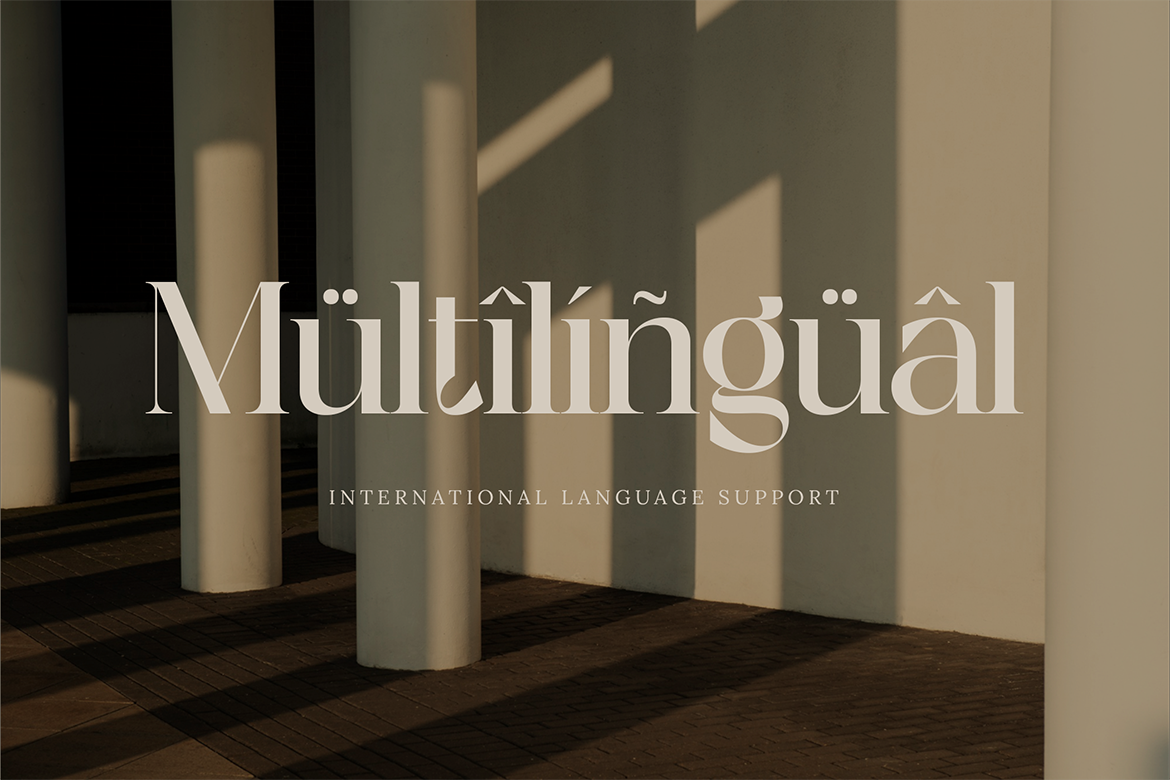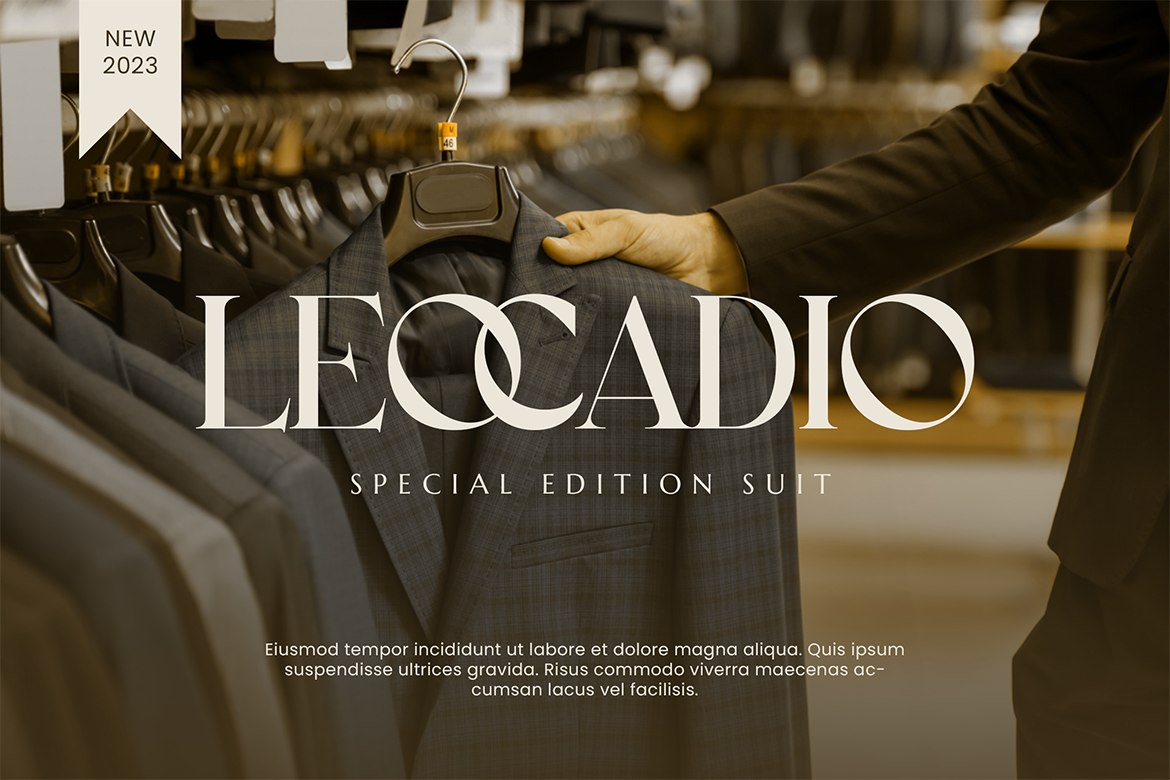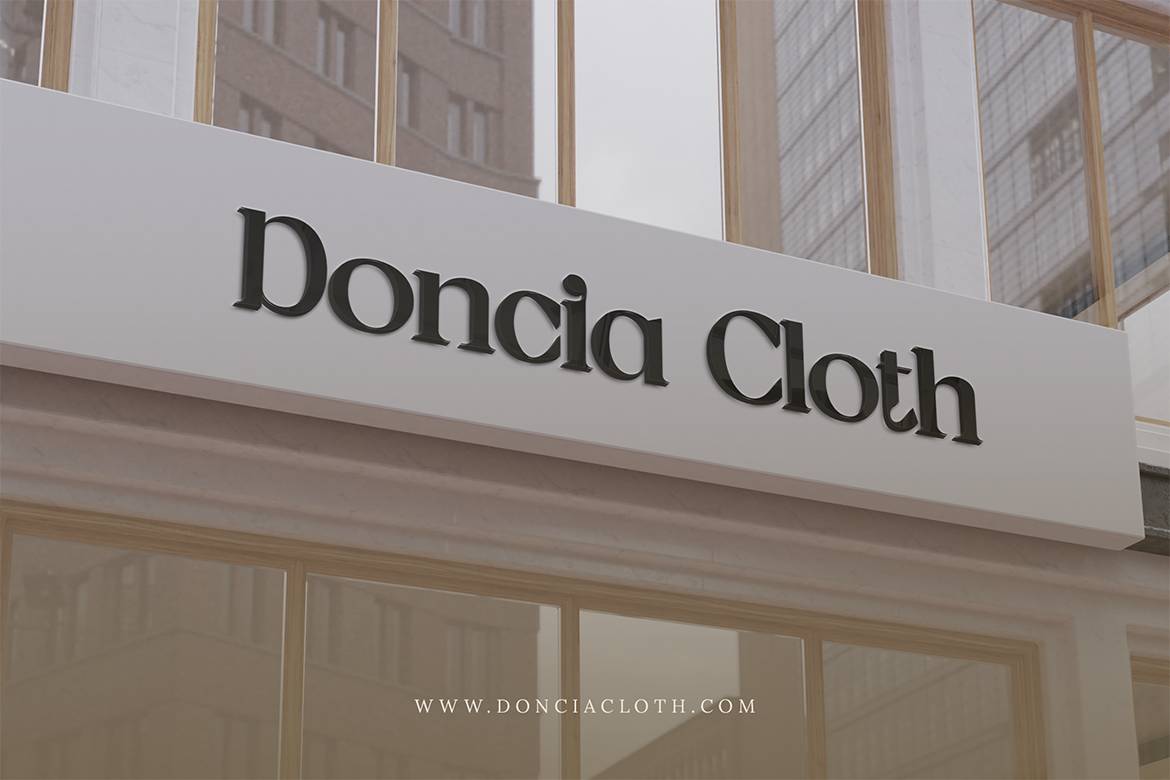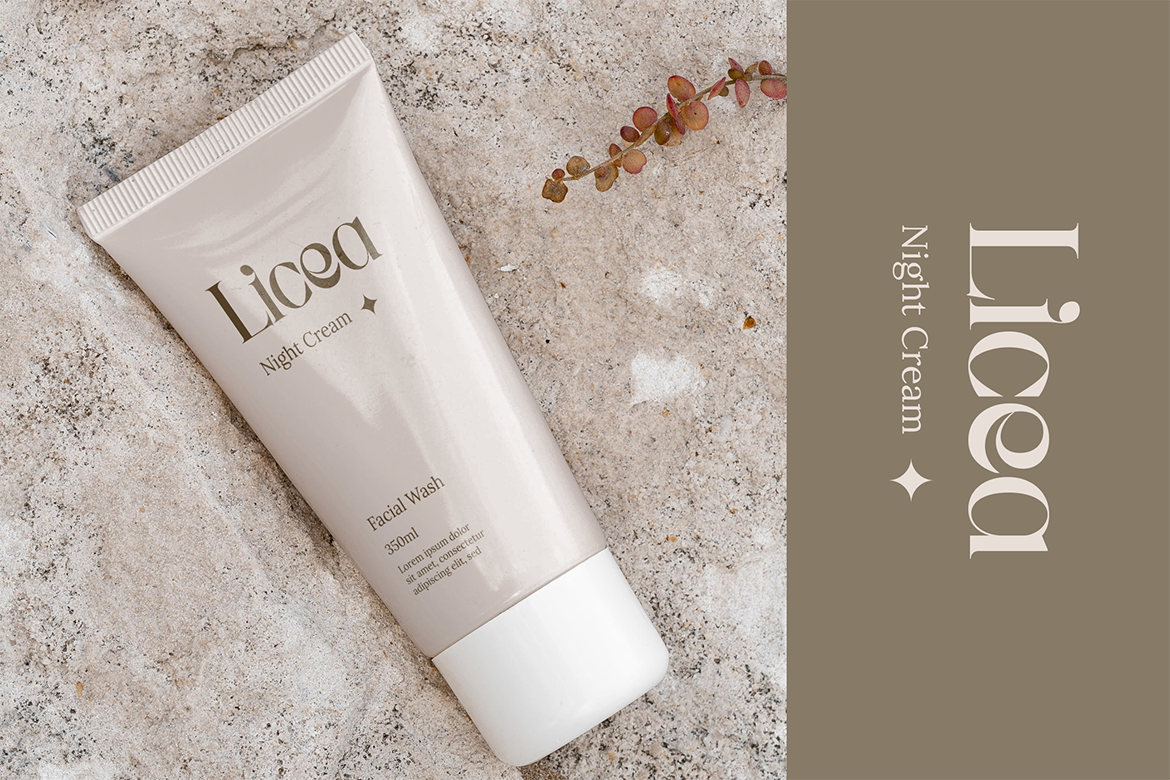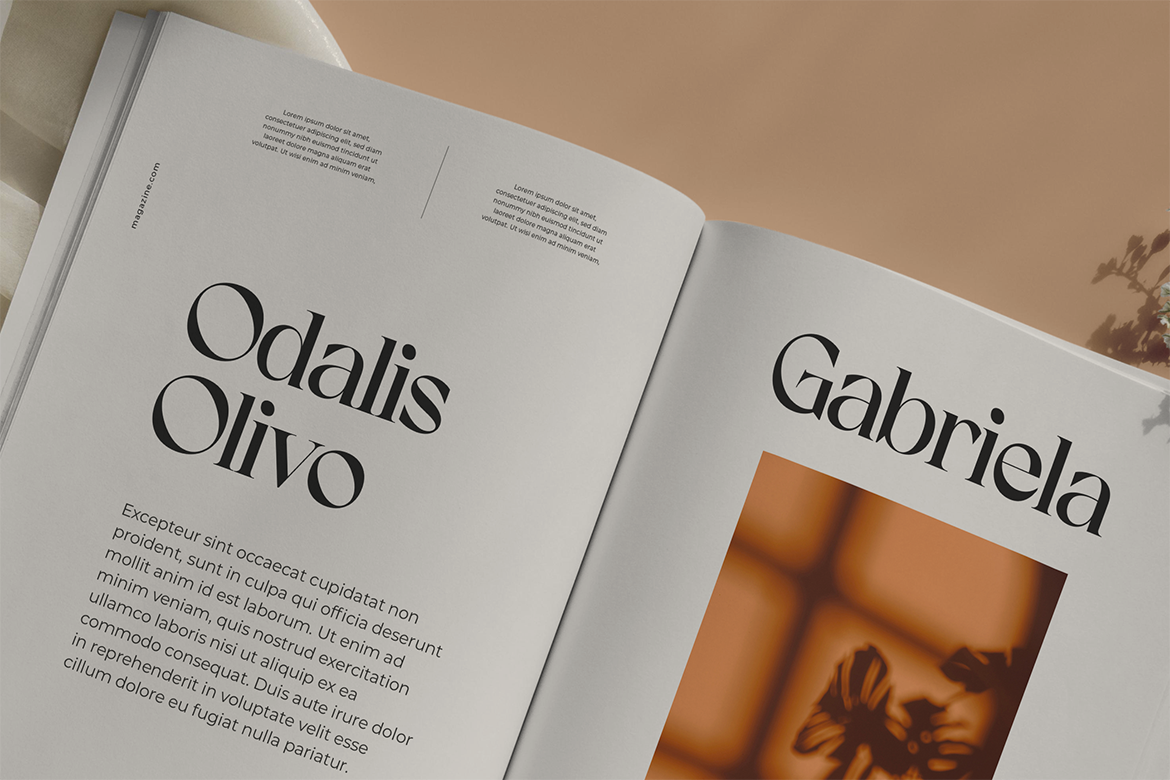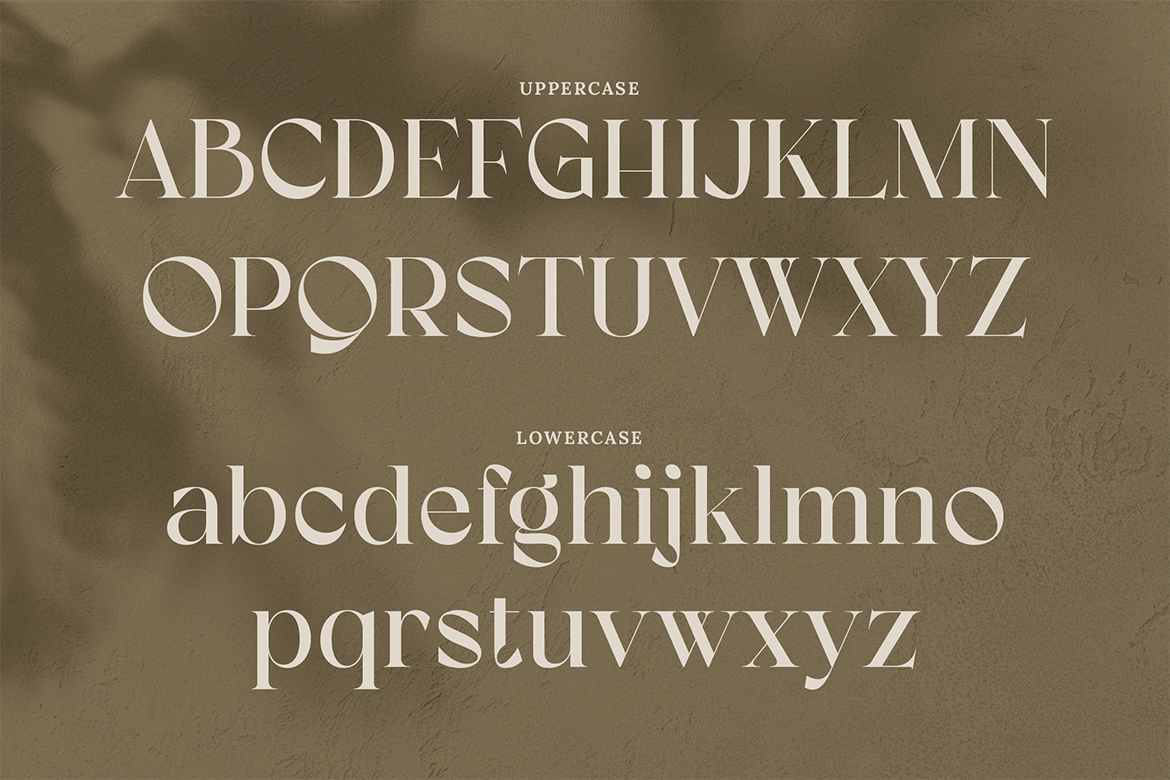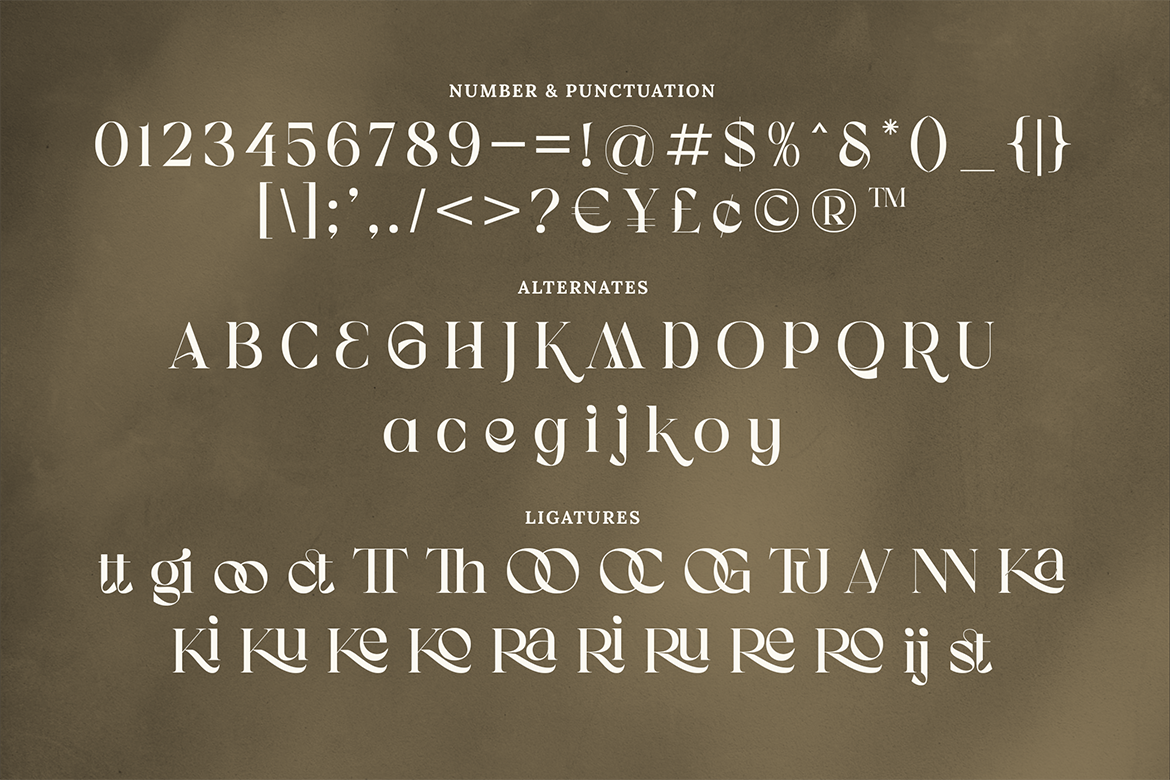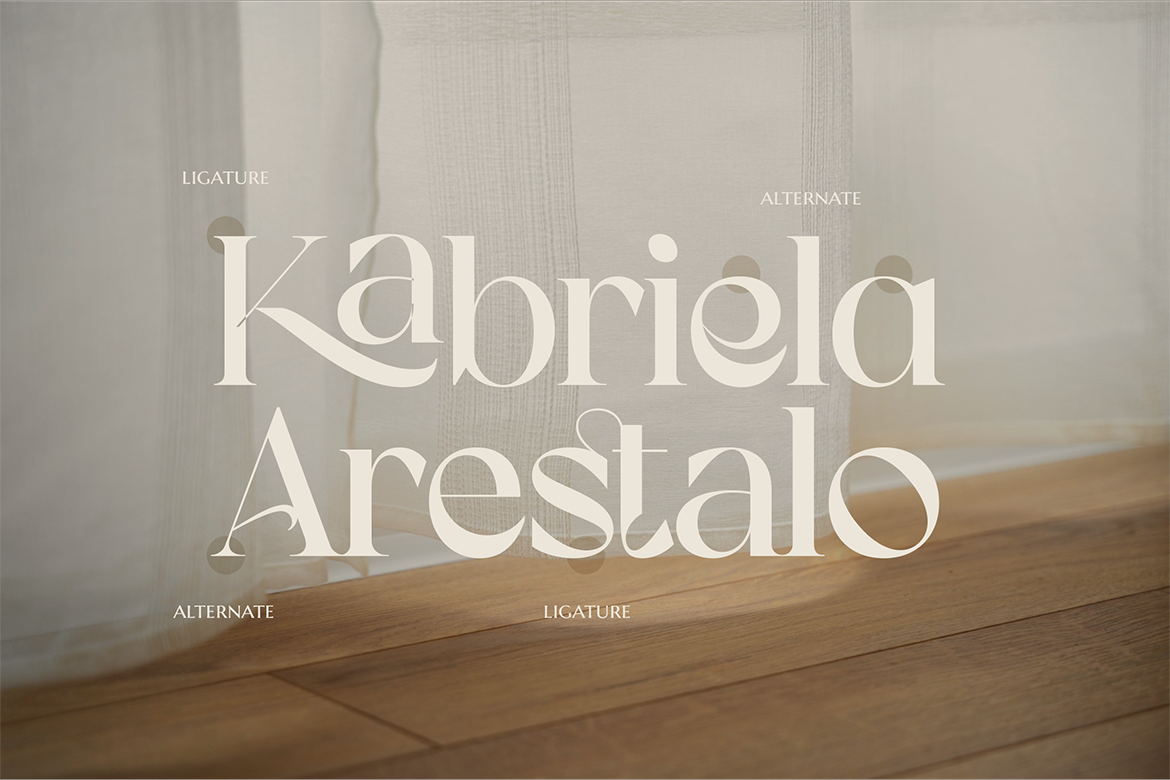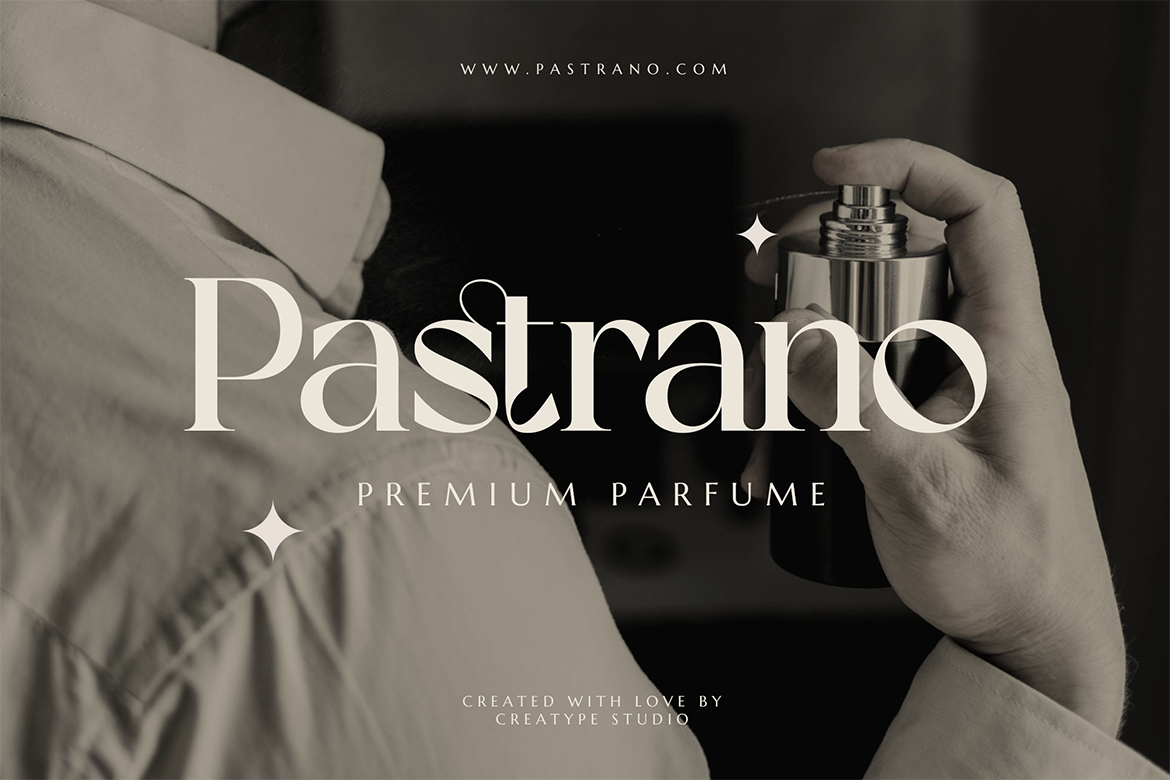
Koolegant, a form of Elegant Serif is a fashionable and modern elegant serif font with some sexy stylish extras
Koolegant is perfect for branding projects, logos, wedding designs, social media posts, advertisements, product packaging, product designs, label, photography, watermark, invitation, stationery, and any projects that need handwriting taste.
Koolegant Elegant Serif